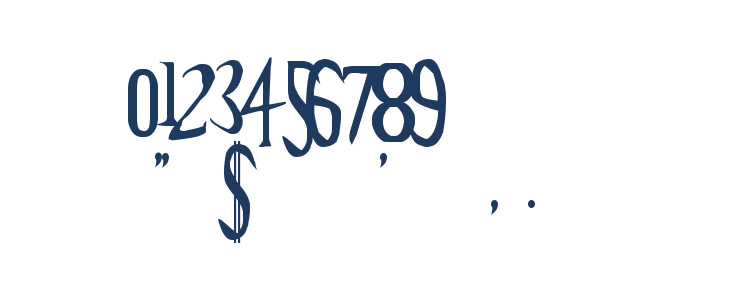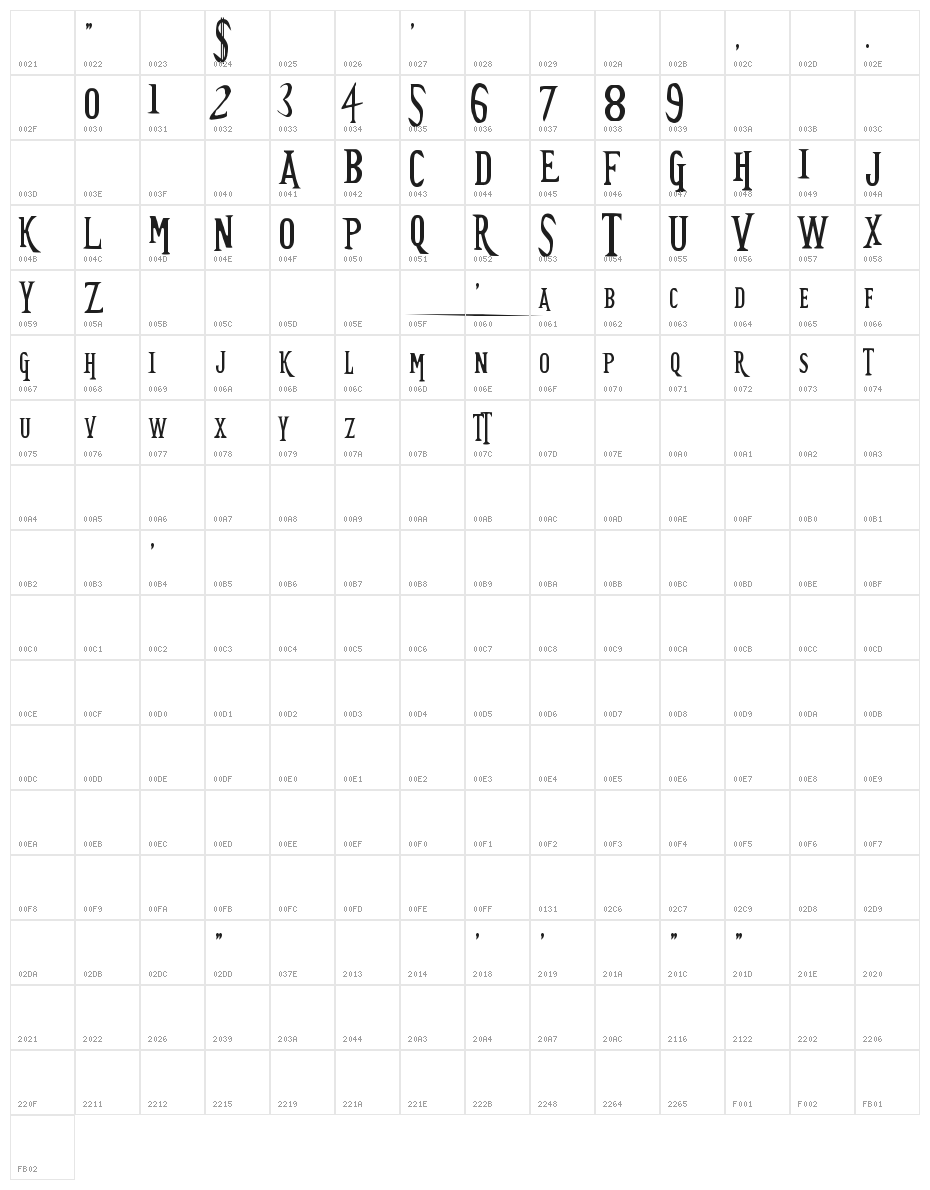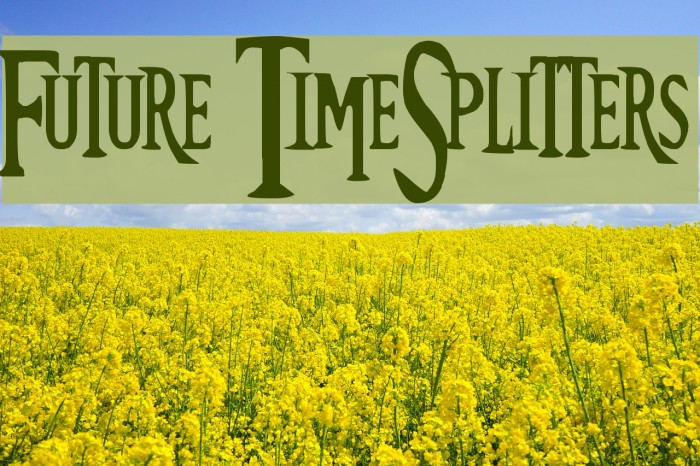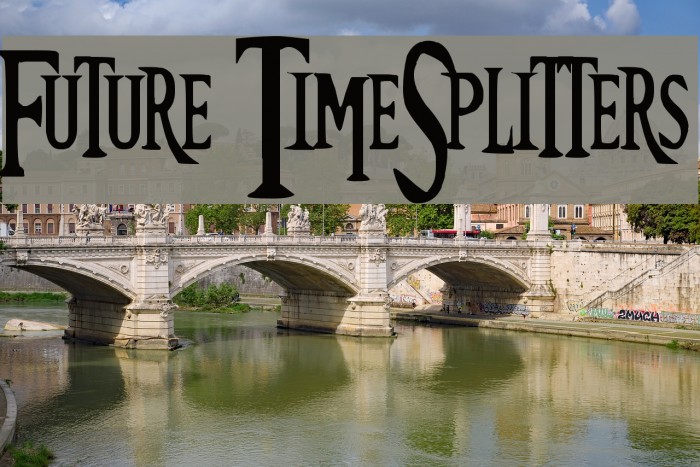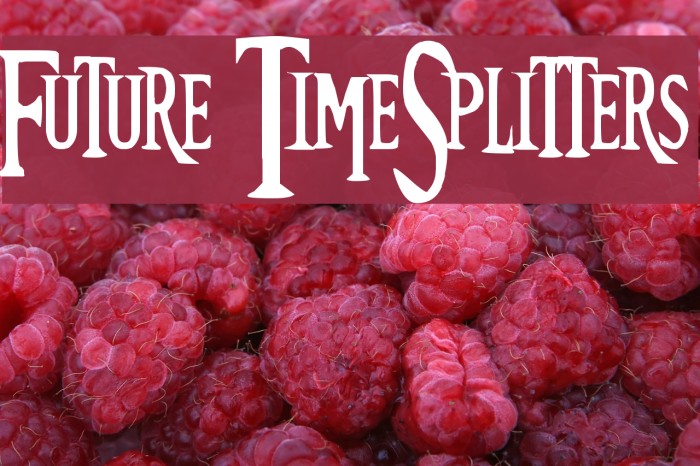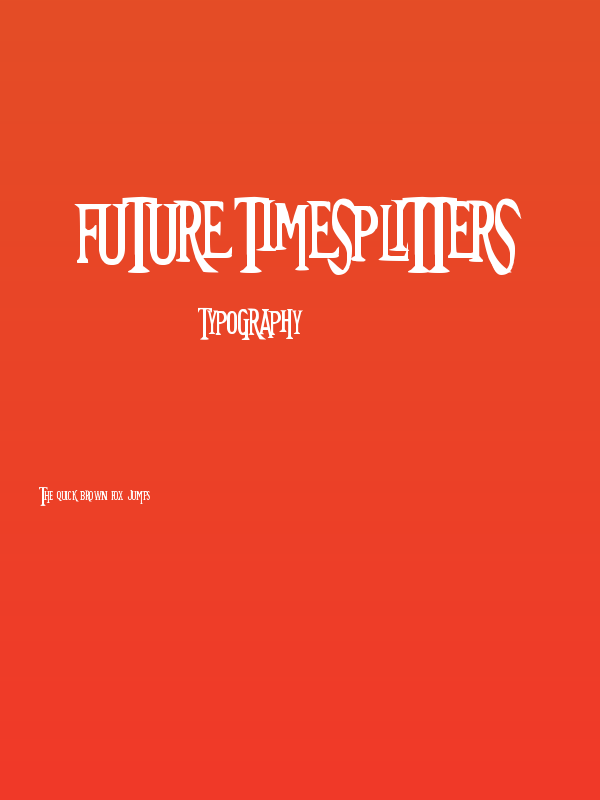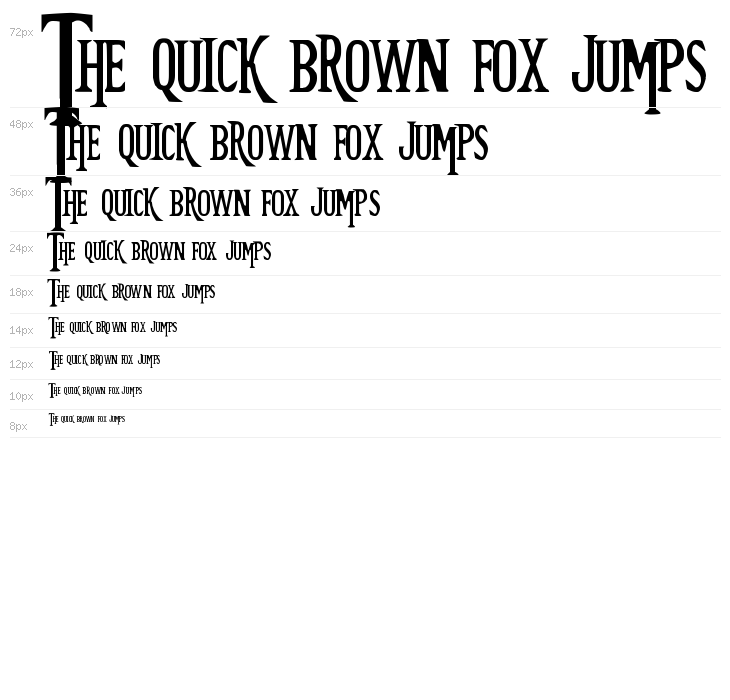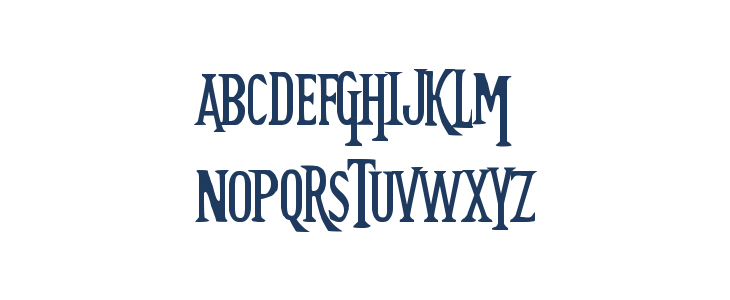
Future TimeSplitters Font
Future TimeSplitters Description
This font features a bold and dramatic style with high contrast between thick and thin strokes, creating a striking visual impact. The uppercase letters are tall and narrow, with sharp, angular serifs that add a sense of elegance and sophistication. The lowercase letters maintain a consistent style, with unique curves and angles that give the font a distinctive character. The numbers are equally bold, with a slightly condensed appearance that complements the overall design. Special characters are designed with the same attention to detail, ensuring a cohesive look across all glyphs.